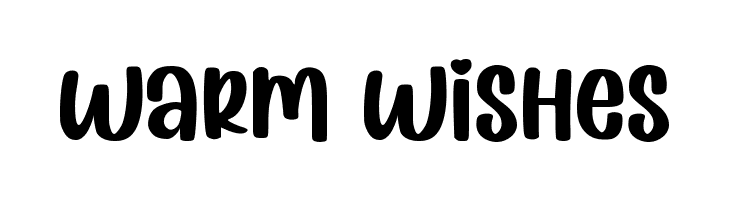
A bold, playful handwritten font with rounded, inviting characters.
A playful, casual handwritten font with smooth curves and a friendly appearance.
A playful, handwritten font with rounded, consistent strokes.
A playful, handwritten font with smooth, rounded edges and a casual style.
A playful and energetic script font with smooth, cursive letterforms.
A smooth, flowing script font with a natural handwriting style.
A playful and casual handwritten font with fluid strokes.
A playful, handwritten script font with a whimsical and fluid style.
A bold, brush-style font with dynamic, expressive strokes.